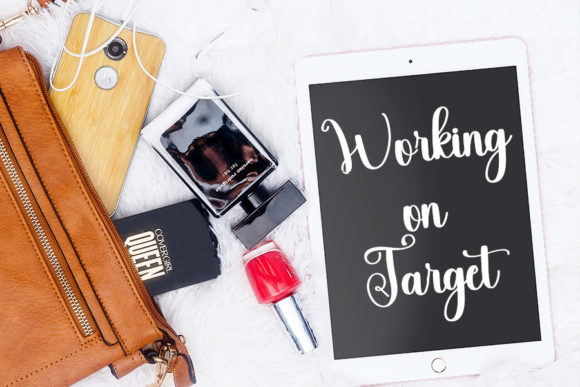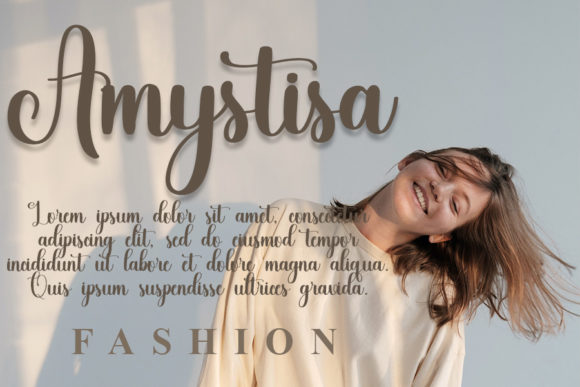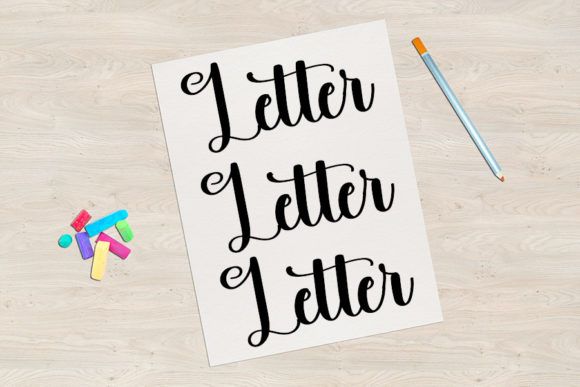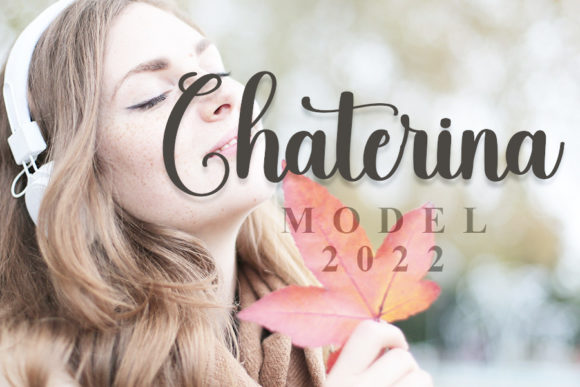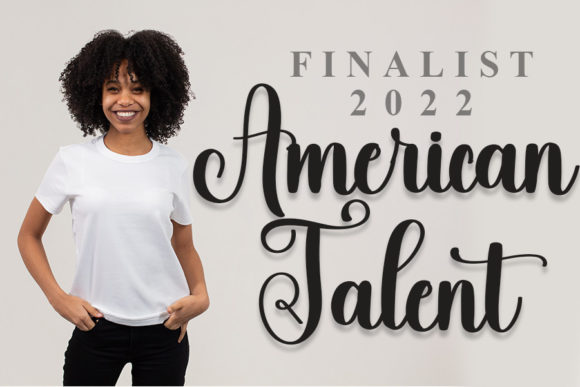
Introduction to Justina Font
Justina is a stylish handwritten font with a contemporary atmosphere and impeccable form, inspired by a timeless classic calligraphy.
Balanced and varied, this font was designed to enhance the beauty of your projects .
Key Features of Justina Font